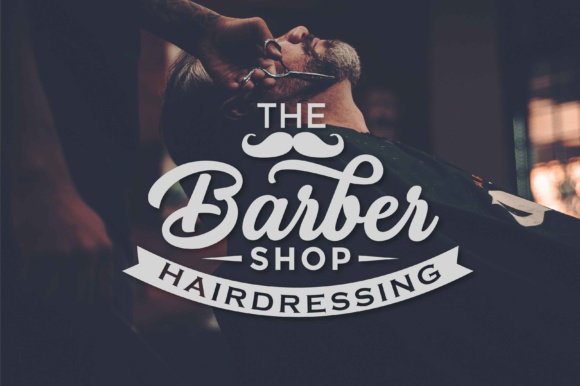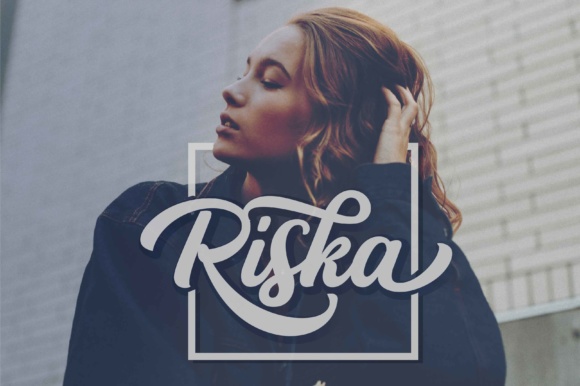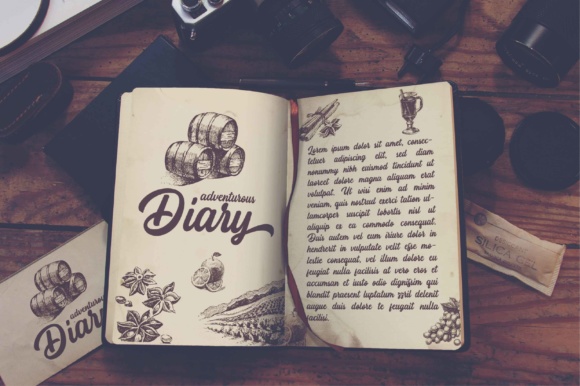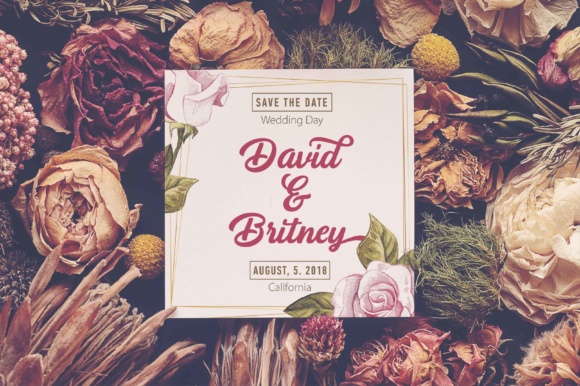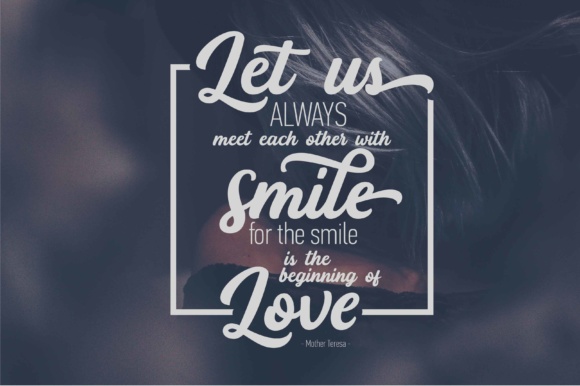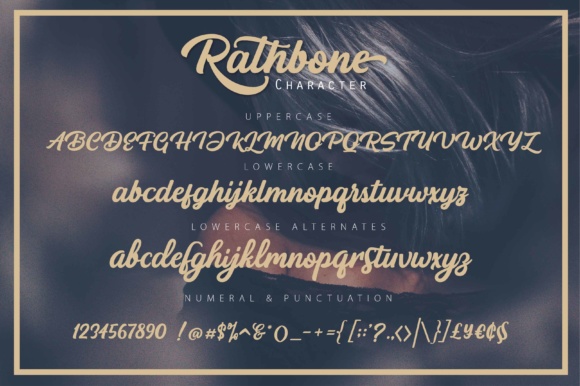
Discovering the Perfect Design Companion: Rathbone Font
Have you ever found yourself staring at a blank page, struggling to convey the perfect message for your creative project? You know, that moment when the words just won’t come together, and you wish you had the right tool to make your design shine?
As designers, we’ve all been there. But what if I told you that there’s a font that can help you break through that creative barrier? Meet Rathbone Font, a stunning and versatile font that’s perfect for adding a touch of elegance and sophistication to your designs.
Whether you’re working on a high-quality design resource, a romantic wedding invitation, or a bold marketing campaign, Rathbone Font is an excellent choice for designers looking to elevate their work. With its beautiful swashy letters and transparent background, this font is a valuable addition to any design library, and it’s now available for free download.
Key Features of Rathbone Font
- The Rathbone Font is a high-quality design resource ideal for creative projects.
- It comes with a transparent background, allowing for easy integration into various designs.
- The Rathbone Font is available in a single size and resolution, making it suitable for a wide range of applications.
- One of its unique characteristics is its modern and sleek design, making it perfect for contemporary projects.
- The Rathbone Font is a versatile design element that can be used for various purposes, from branding to digital art.
Honest Review: Rathbone Font
As a designer, I’m always on the lookout for high-quality design resources to elevate my creative projects. The Rathbone Font is one such resource that caught my attention, and I’m excited to share my honest review.
What works well: ✨ The Rathbone Font has a beautiful, elegant design that’s perfect for corporate or luxury branding projects. The font is highly versatile and can be used for a variety of applications, from headlines to body text. The transparent background option is also a great feature, allowing for seamless integration with any design element.
- Perfect for corporate or luxury branding projects
However, I did notice a few limitations: ⚠️ The font is not suitable for projects that require bold or dramatic typography, as it can come across as too refined or understated. Additionally, the free download option is limited to a single file type, which may not be compatible with all design software.
Overall, I’m impressed with the Rathbone Font, and I think it’s a great addition to any designer’s toolkit. With its high-quality design and versatile applications, it’s definitely worth considering for your next creative project.
Tips for Getting the Most Out of Rathbone Font
For optimal results, use the Rathbone Font on a transparent background to create a clean and minimalist design. You can also experiment with different font sizes and colors to create visual interest. Additionally, consider using the Rathbone Font in combination with other high-quality design resources to create a cohesive and professional design.
The Rathbone Font is suitable for a variety of creative projects, including business cards, brochures, and social media graphics. It’s also a great choice for designers who want to create a clean and modern aesthetic. With its transparent background and high-quality design, the Rathbone Font is a free download that can elevate any design project.